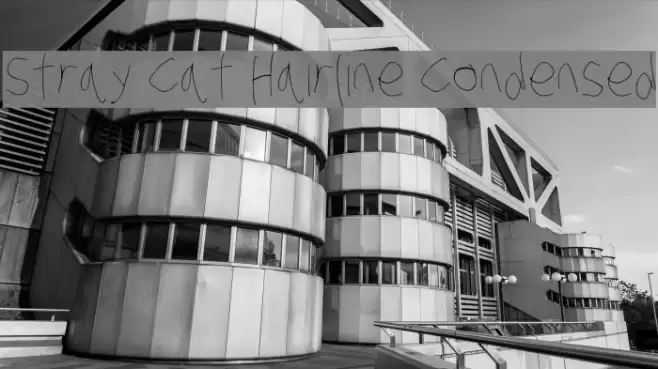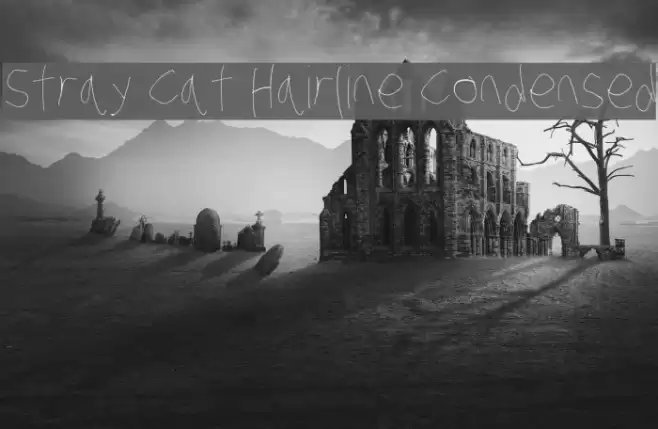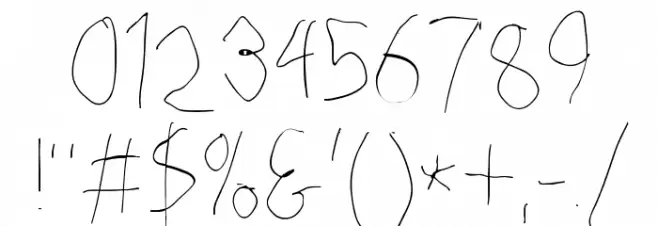
Stray Cat Hairline Condensed Font
Stray Cat Hairline Condensed Description
This font features a playful, hand-drawn style with a thin, hairline stroke that gives it a delicate and whimsical appearance. The characters are irregular and slightly tilted, adding to the informal and casual feel. The uppercase and lowercase letters maintain a consistent style, with elongated forms and a slightly condensed width. The numbers and special characters follow the same quirky design, making the font suitable for creative and artistic projects. The overall look is reminiscent of a child's handwriting, offering a sense of spontaneity and charm.
A playful, hand-drawn font with thin strokes and a whimsical, informal style from Uncategorized fonts.
- Proposed Projects: Ideal for children's books, greeting cards, creative posters, and playful branding.
- Use Case: Headlines, Logos, Creative projects